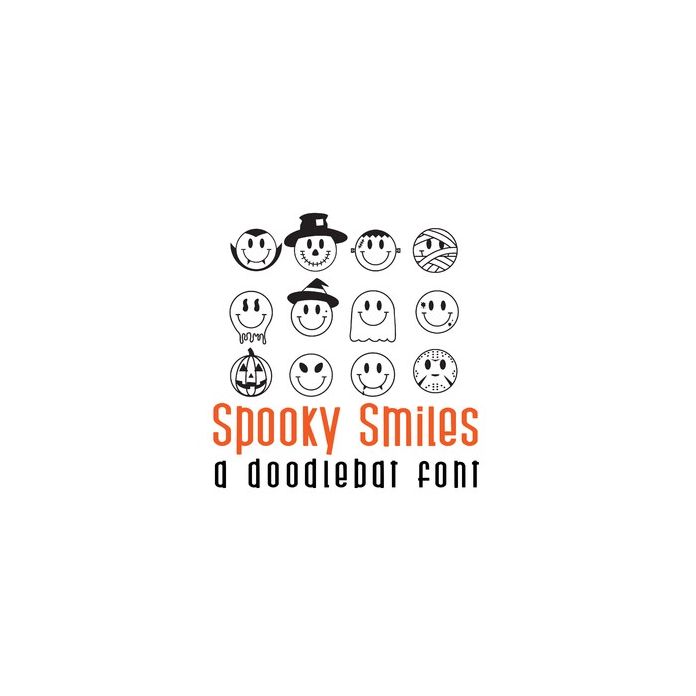
This fun doodle style doodlebat font features 29 spooky Halloween smiley faces. Perfect for cards, crafts, gifts, decor, scrap book pages, planner stickers and more! Dingbats are A-Z and 0-2.